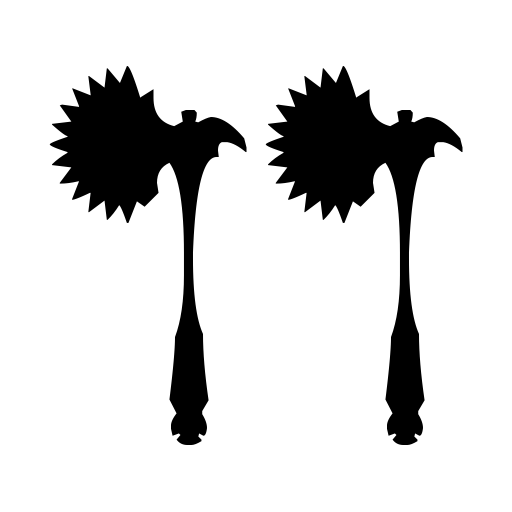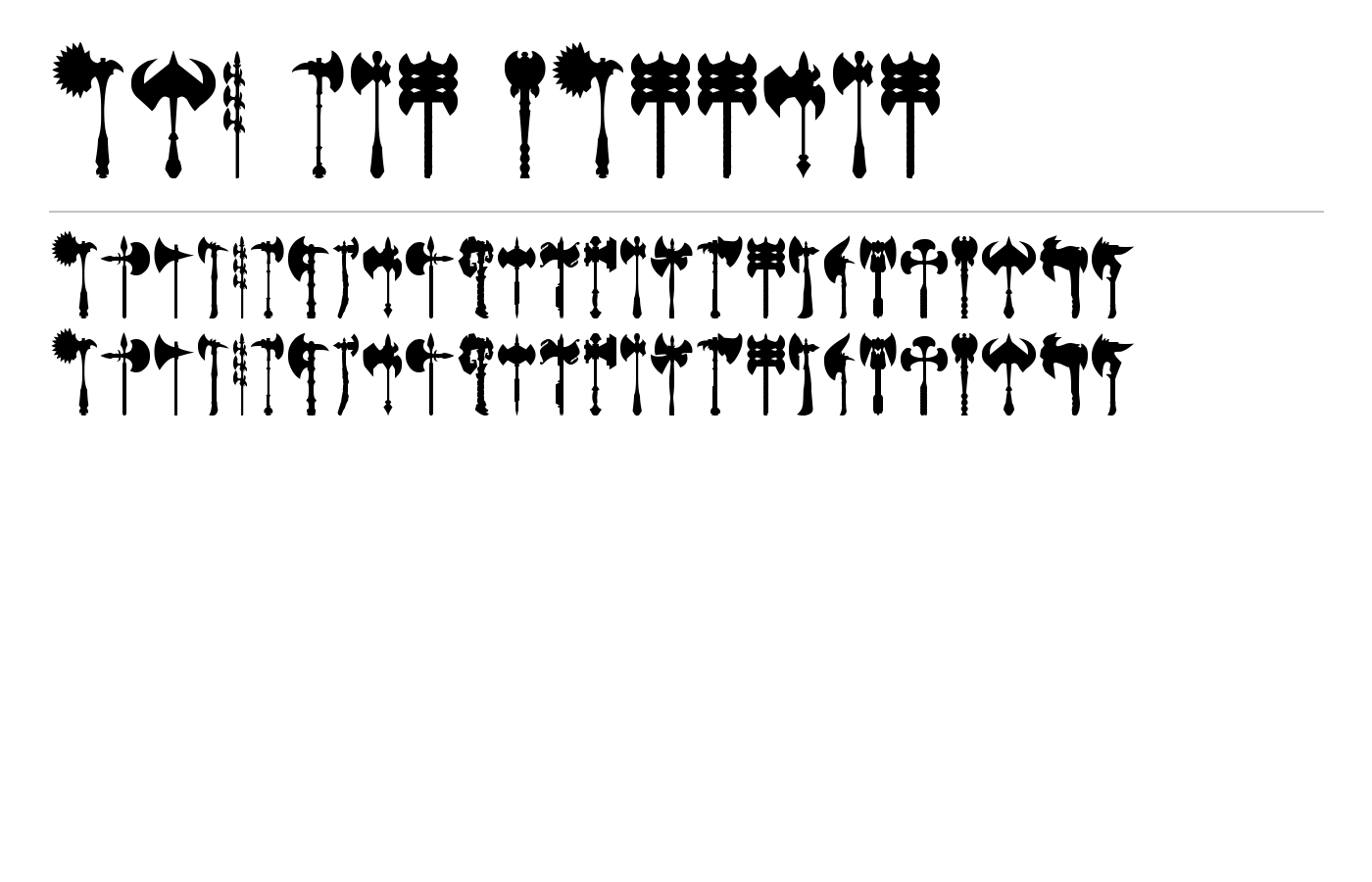
Axe for Warrior is a highly decorative, novelty typeface composed entirely of bold, stylized axe silhouettes. With its heavy, solid shapes and unique weapon-themed design, this font conveys a strong, edgy, and medieval warrior vibe, perfect for designs needing a dramatic or fantasy-inspired touch. It works best for logos, posters, and themed event materials where eye-catching, thematic imagery is essential.
axe for warrior Font
About axe for warrior Font
| Font family | axe for warrior Font |